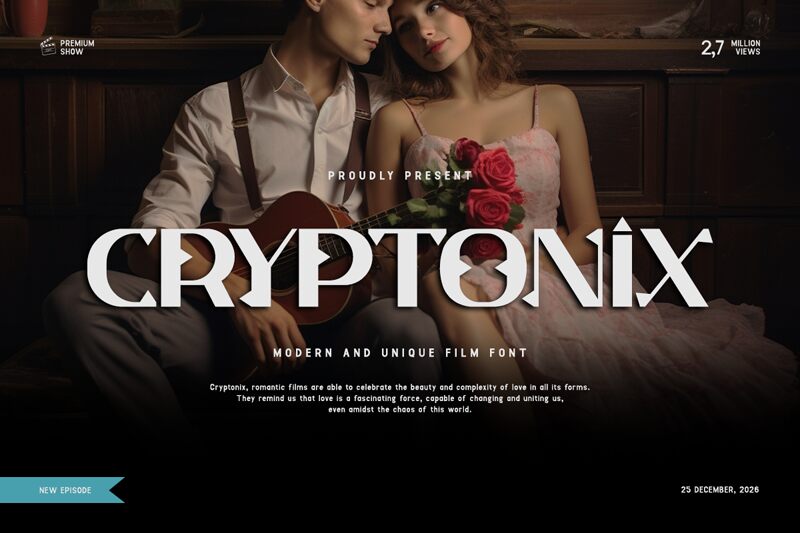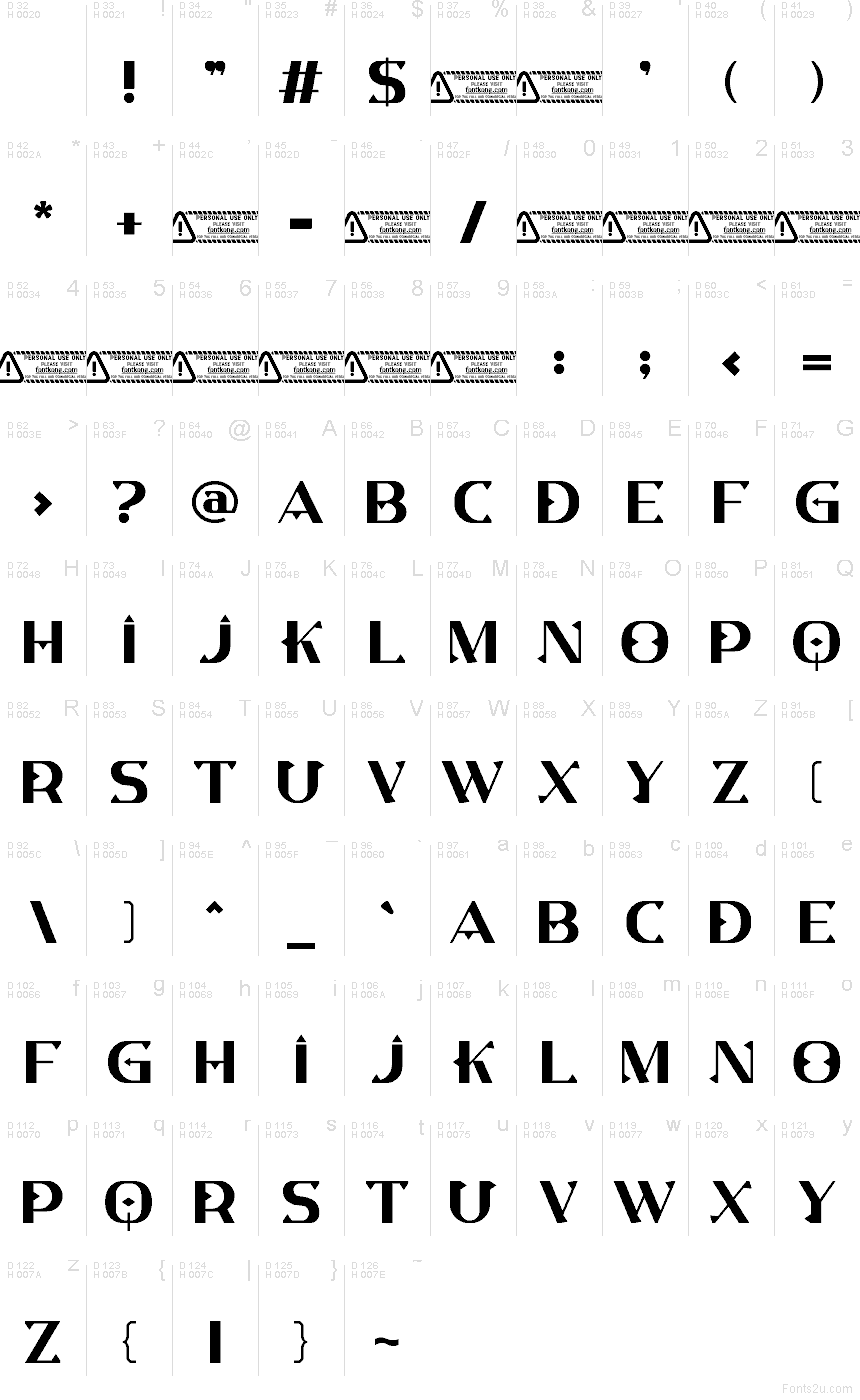
Cryptonix font by Kong Font is a free decorative display typeface with a sharp, cybernetic edge. Angular cuts, tight spacing, and those sliced, interlocking shapes give it a futuristic, encrypted feel—like letters carved from matte black metal. It reads as bold and mysterious, but still structured enough to anchor a logo or title without feeling chaotic.
Using Cryptonix font, you can push sci-fi posters, gaming covers, tech event branding, YouTube intros, and crypto or blockchain graphics into darker, more cinematic territory. This free font shines at large sizes where its geometric cuts and dramatic silhouettes can really breathe. Pair it with a clean, light-weight sans serif for supporting text to keep your layouts readable while Cryptonix steals the spotlight.